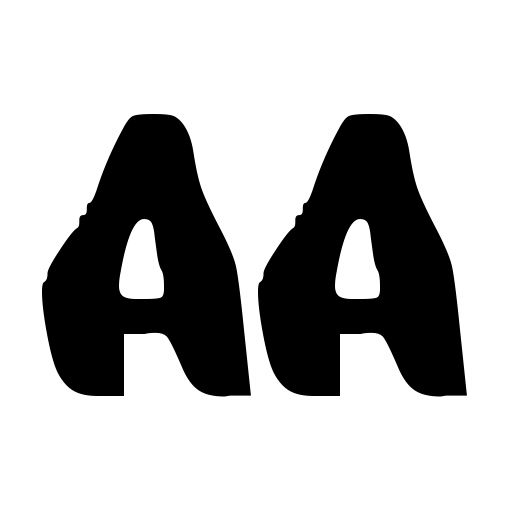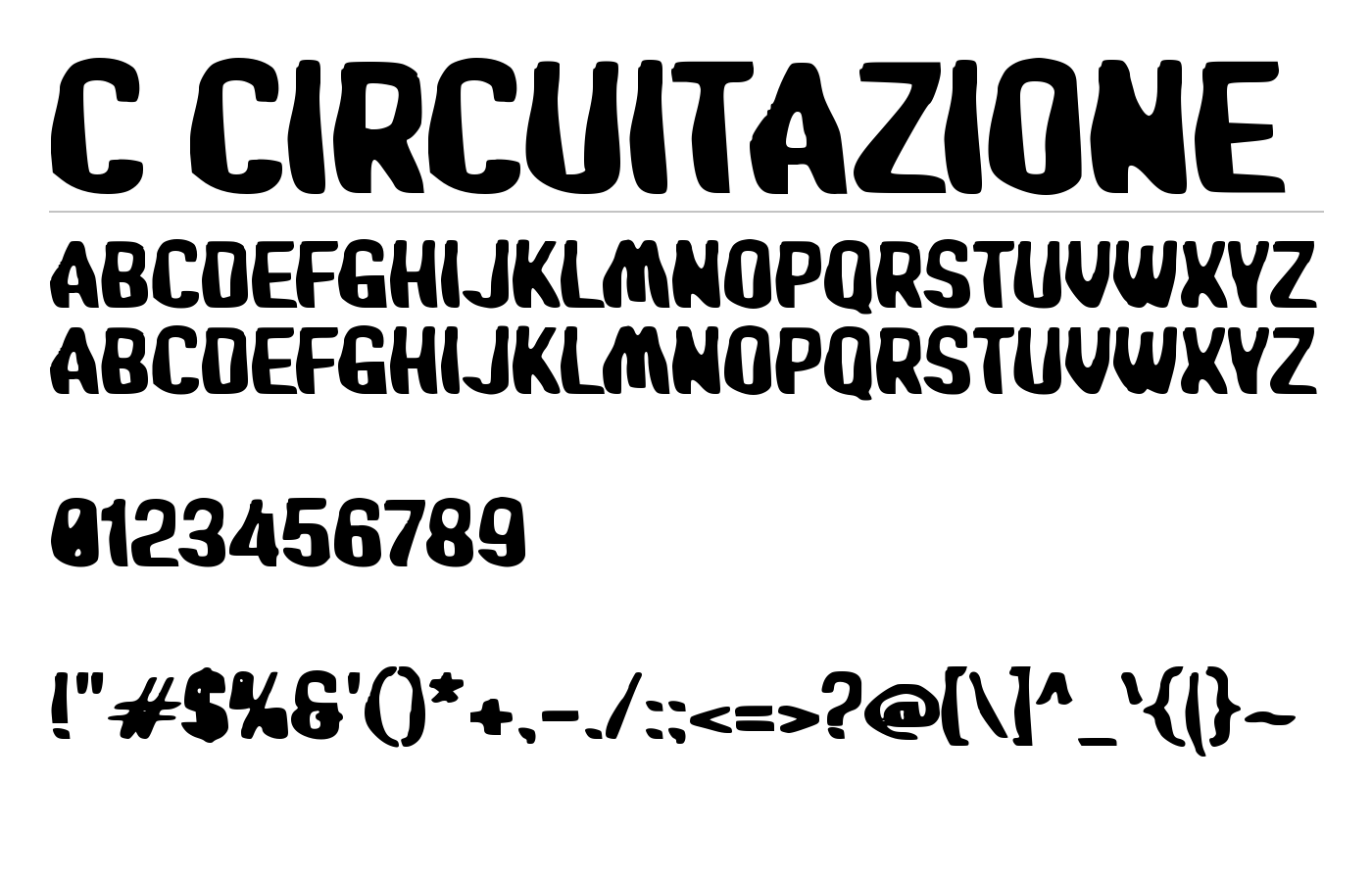
Circuitazione Font is a bold, playful sans serif with a lively, hand-crafted feel. Its irregular, softly rounded shapes and sturdy weight make it ideal for energetic, informal designs like posters, packaging, and branding that want to convey creativity and approachability. This font works best in headlines and display uses, where its quirky character can shine with clarity and impact.
c Circuitazione Font
About c Circuitazione Font